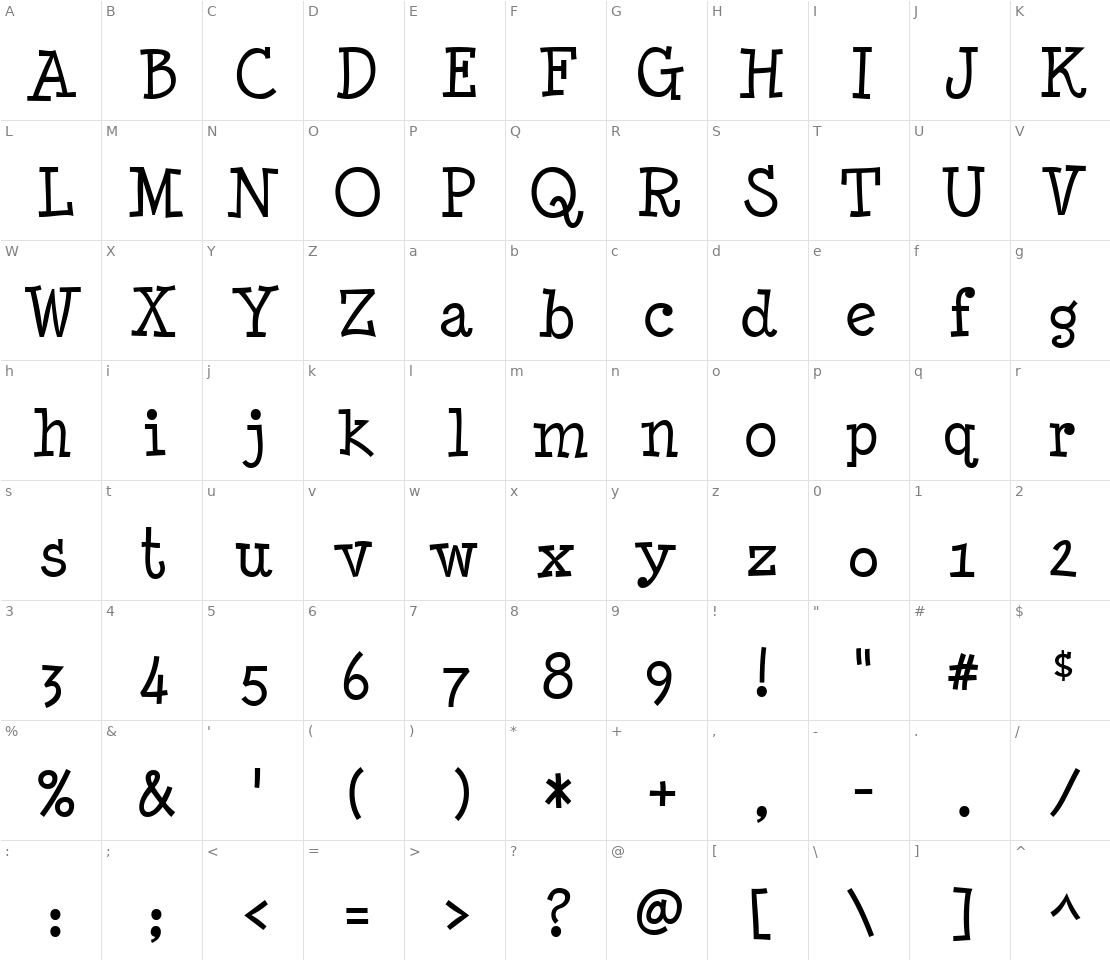
Minya Nouvelle
Minya Nouvelle is a typewriter-style serif from Ray Larabie with a slightly irregular baseline and handmade feel that gives it more personality than your typical monospaced slab. The letterforms have a warm, vintage quality, quirky enough to feel distinctive but restrained enough to hold up in body text. It reads like something typed on a well-loved machine with a ribbon that's seen better days.